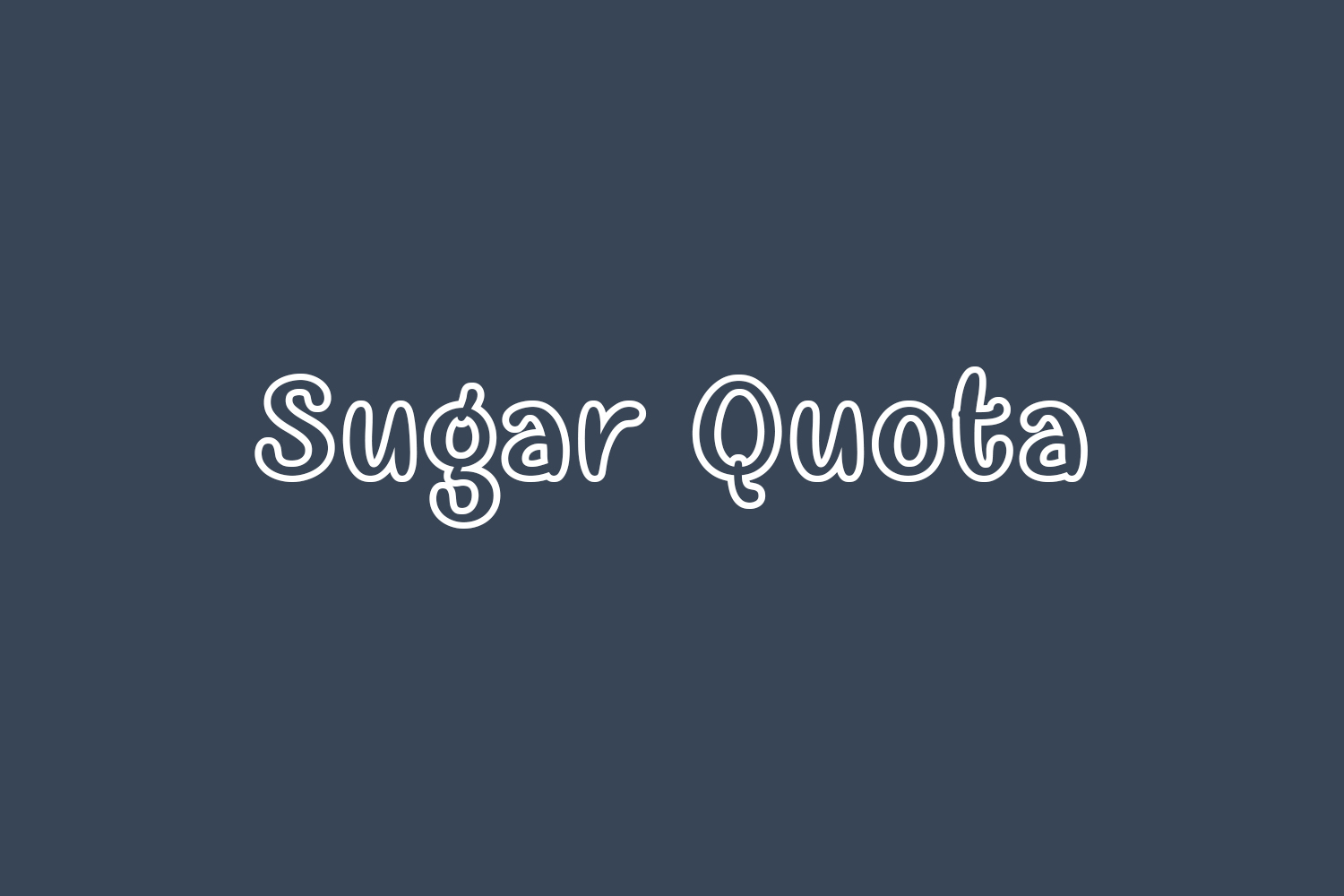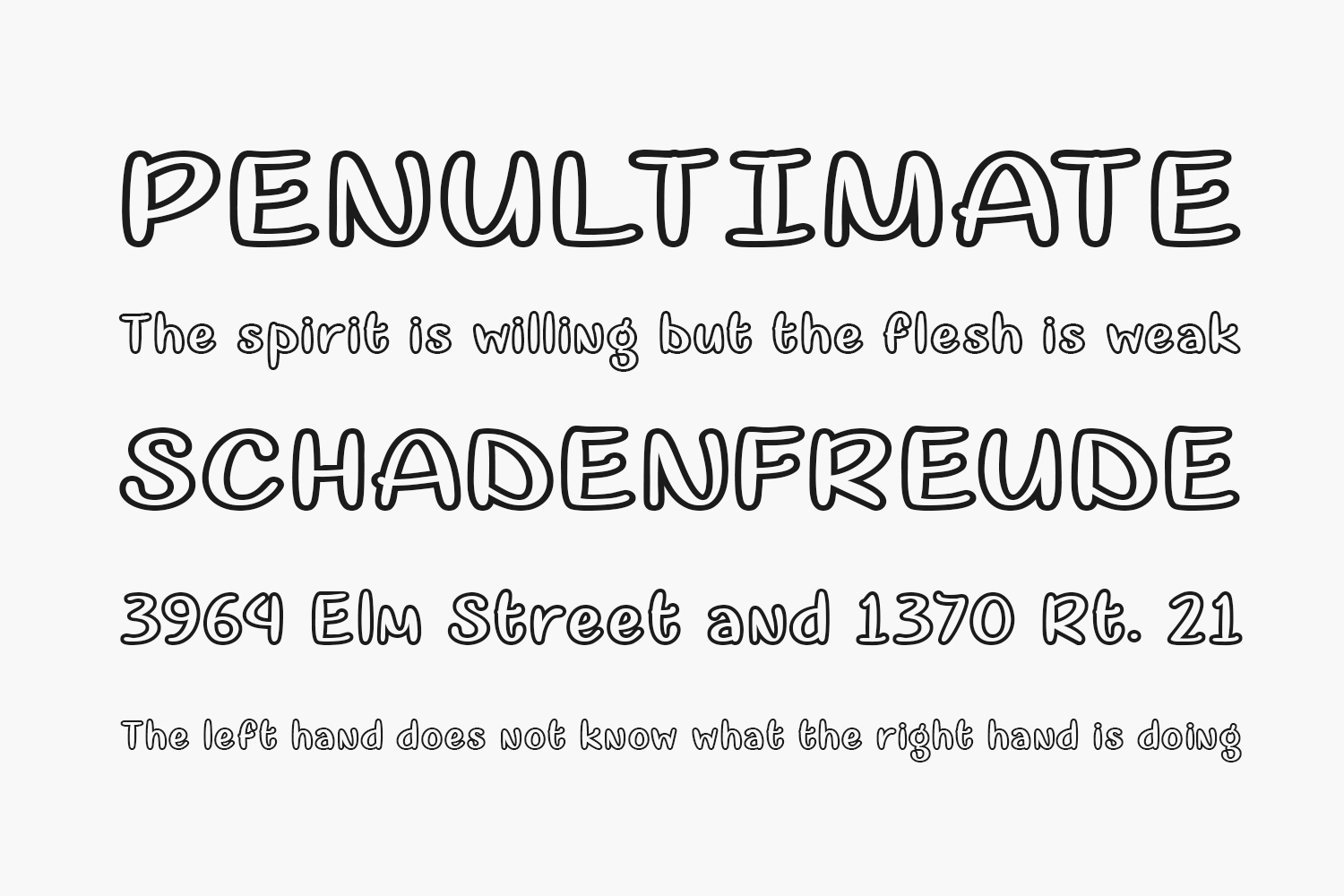
Sugar Quota Free Font is a super fun outlined display font that will be great for a variety of projects! You can use it for designing coloring books, stylish greeting cards, social media graphics, Etsy shop logos, website banners, TikTok videos, and anything else you can imagine. Sugar Quota Free Font is free for personal use only. Please purchase the full version for commercial use.